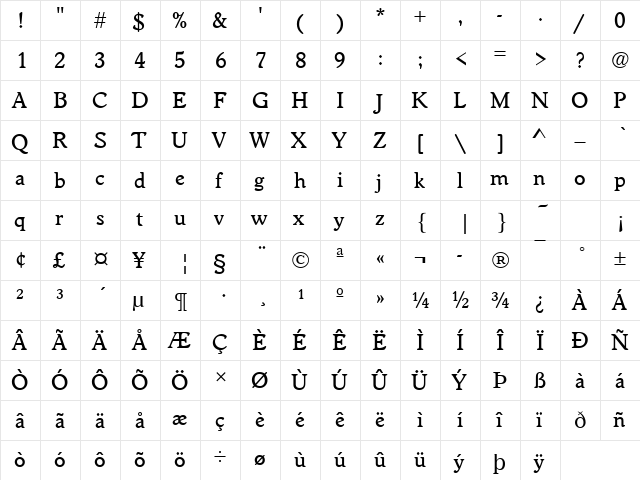
WorcesterRouTMed Regular
Design Context for WorcesterRouTMed Typeface
WorcesterRouTMed offers clean, dependable letterforms without strong stylistic allegiance, making it a practical choice for designers who need flexibility.